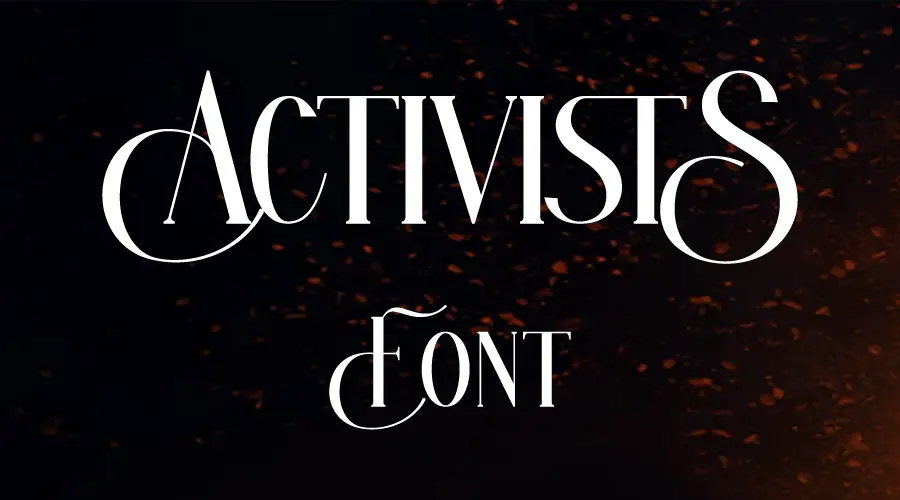
Are you looking for a modern serif typeface that exudes elegance and sophistication? Look no further than Activists Font! A brand new creation by 177Studio, a renowned design studio based in Indonesia. Now we will discuss this font and its characters and where to use it and more.
Activists Font Features
Activists Font is a stunning typeface that boasts a striking contrast between its thick and thin strokes. This gives it a dynamic and sophisticated look. The font is available in two styles: regular and italic and supports uppercase and lowercase letters, numbers, punctuation, and some symbols. Furthermore, Activists Font includes ligatures and alternates that enhance its readability and aesthetic appeal.
Where to Use Activists Font
You can use it for a wide range of purposes thanks to its modern and elegant appearance. It’s perfect for designing logos or monograms for businesses or organizations that want to convey quality, professionalism, or excellence. It’s also an excellent choice for creating branding materials such as business cards, letterheads, envelopes, or labels that showcase the brand’s identity or values.
Moreover, this font is a great option for creating print designs such as posters, flyers, brochures, or magazines that catch attention and communicate effectively. It can also be used to design web designs such as websites, landing pages, banners, or newsletters with a sleek and elegant appearance. With this font, the possibilities are endless!
Conclusion
Activists Font is a stunning modern serif typeface that’s perfect for branding projects that require a clean, minimalist, and elegant style. It’s available for personal use for free, but a commercial license is required for profit-making projects. So, why not give it a try and take your branding to the next level!